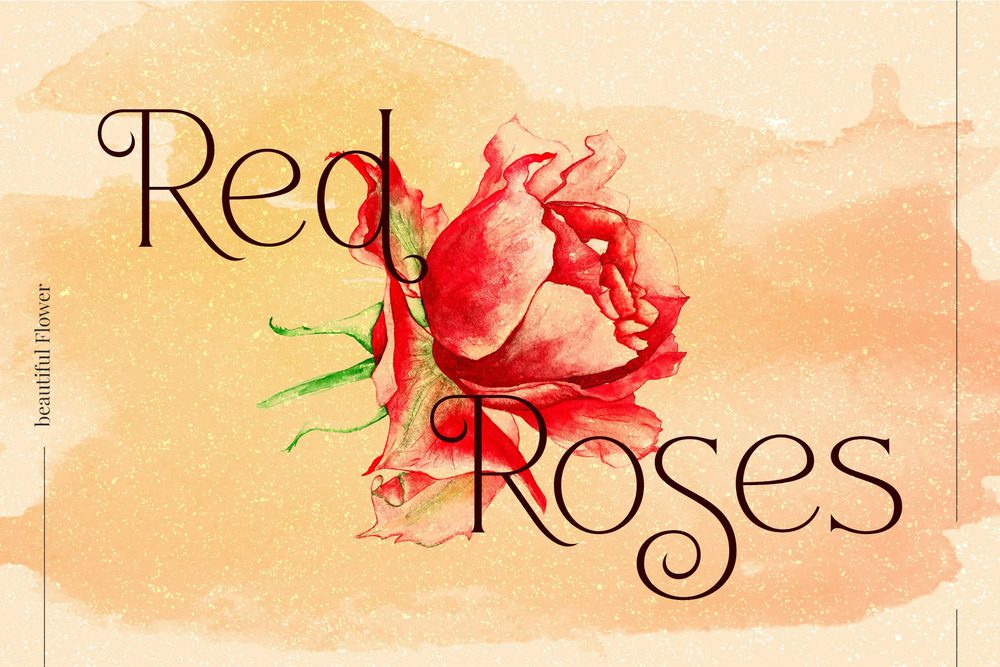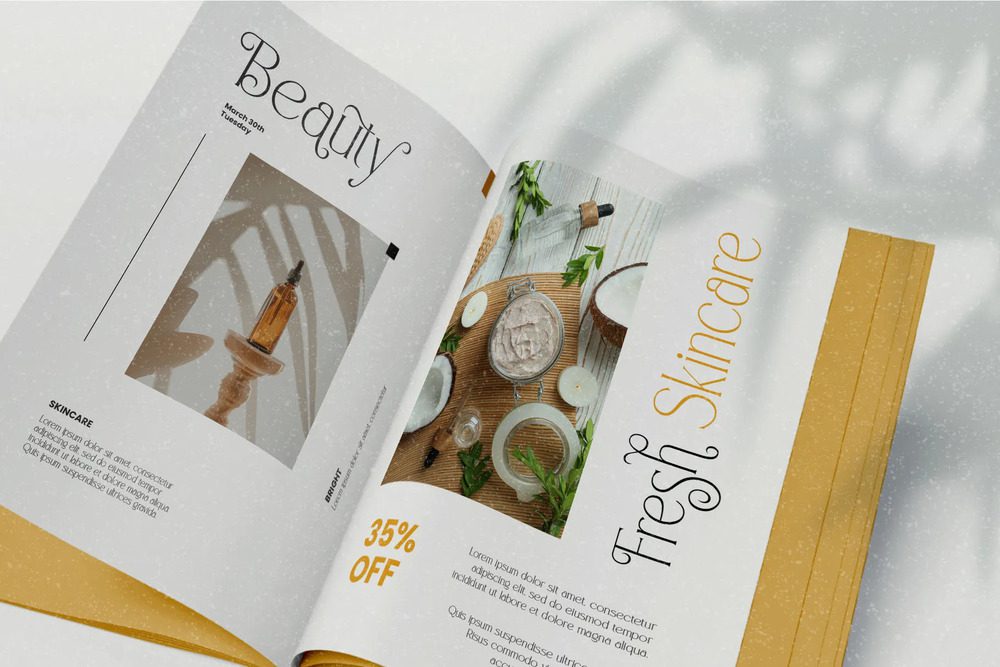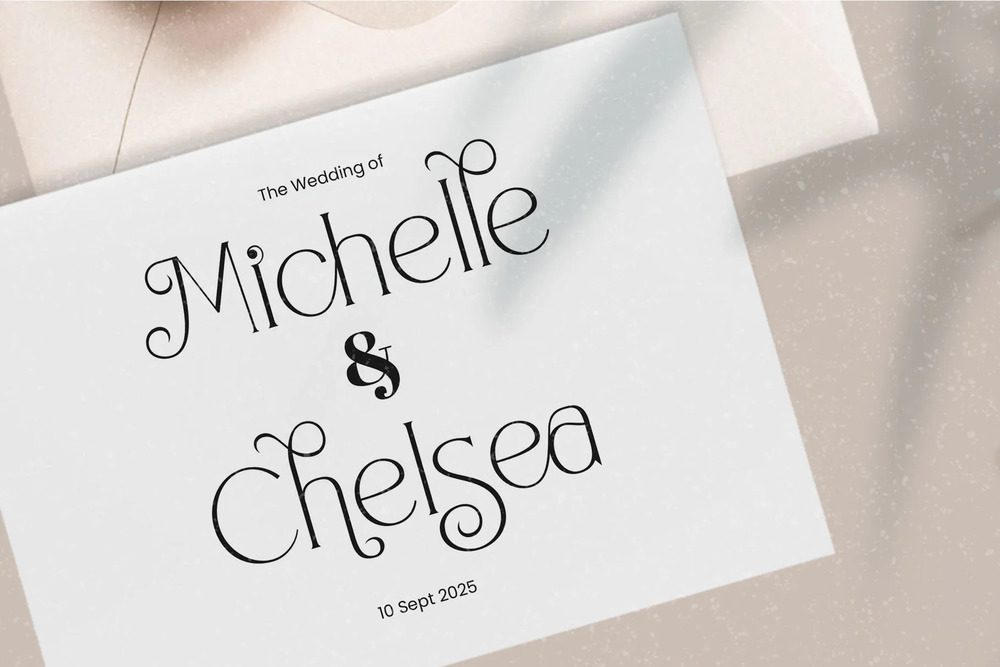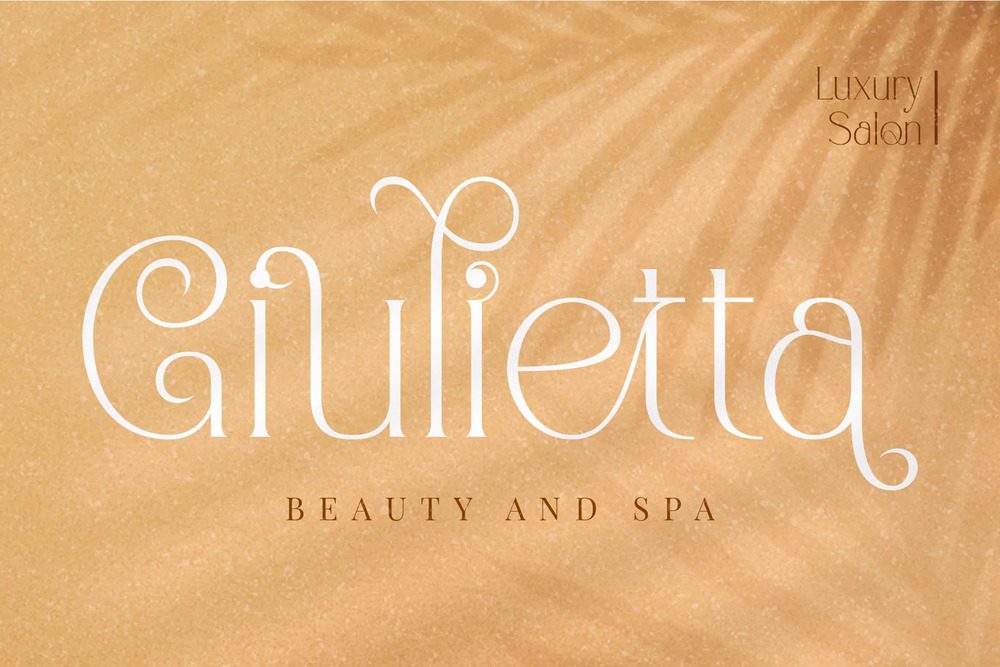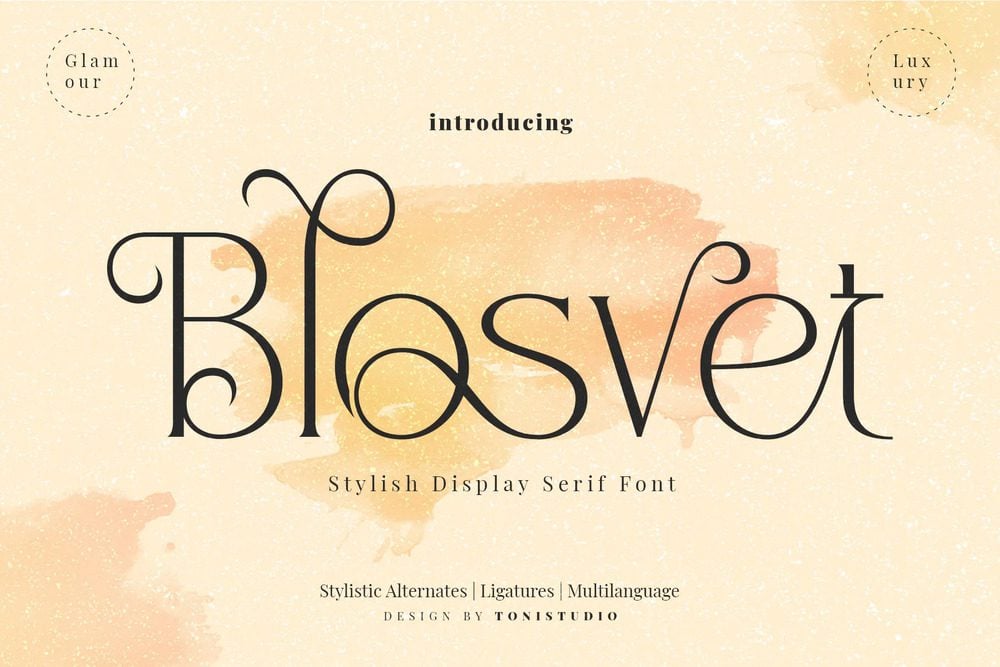
Blosvet Font
Blosvet is an elegant serif display font. A typeface with an added touch of modernity and elegance with an extra binder and alternative glyphs. Great for branding, logos, invitations, master heads and more. Multilingual support, with uppercase, lowercase, numbers and punctuation marks. Let’s light up your next project with Blosvet.